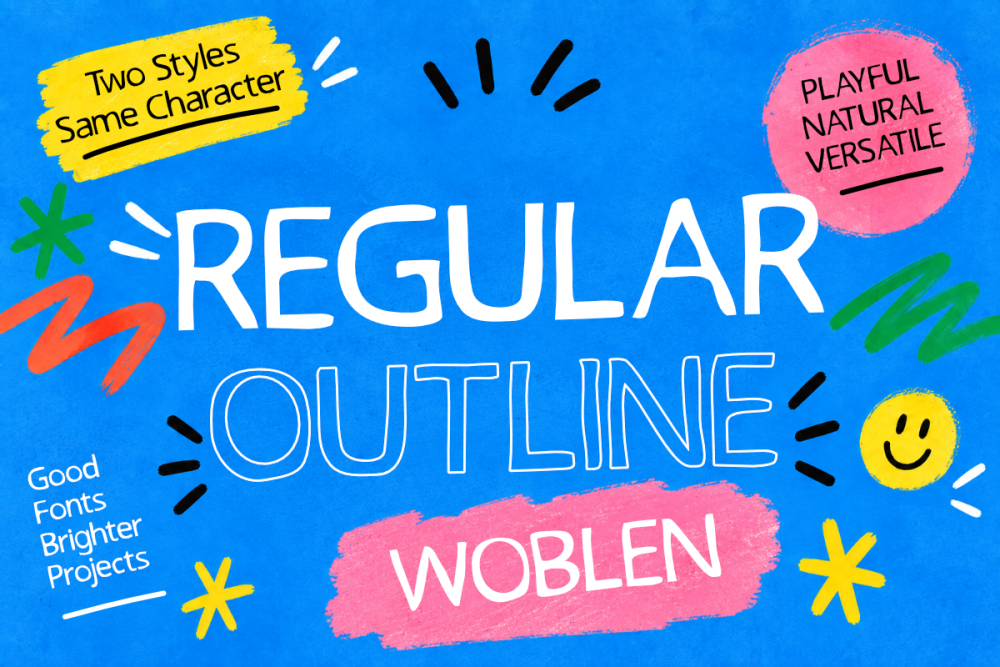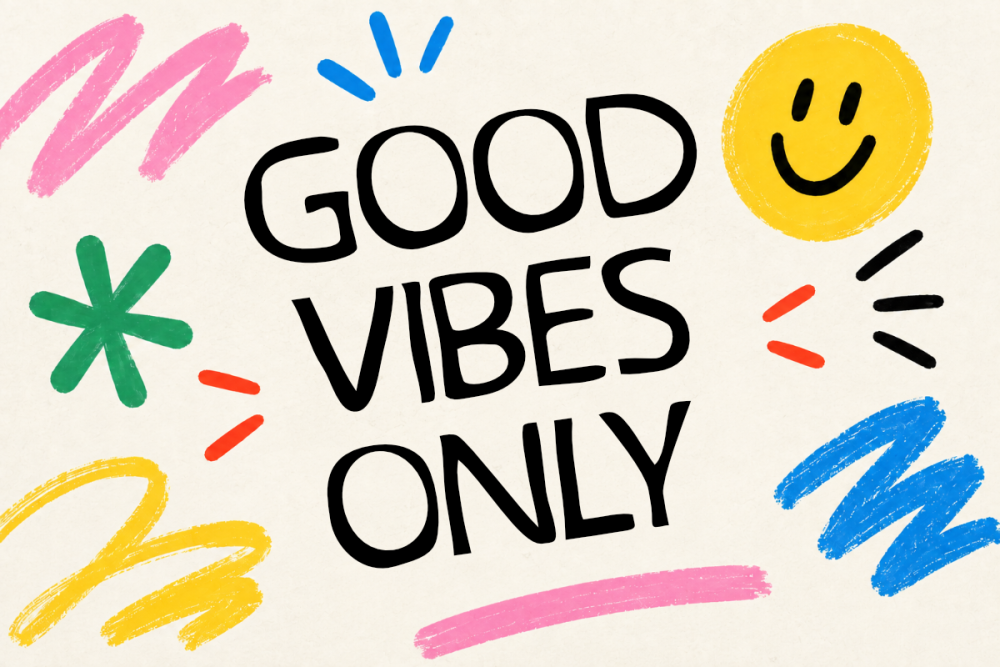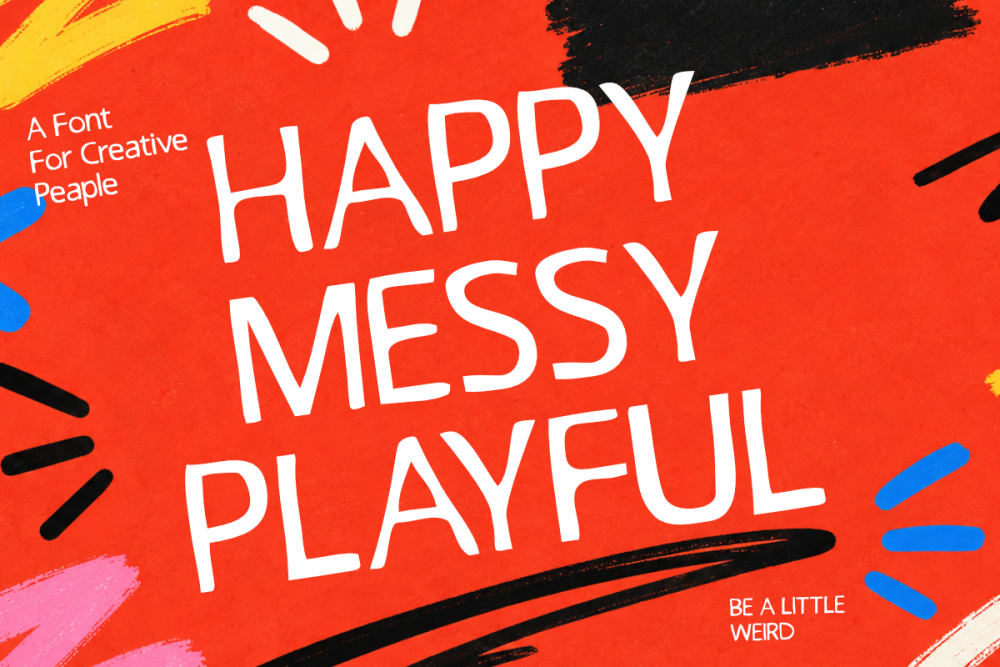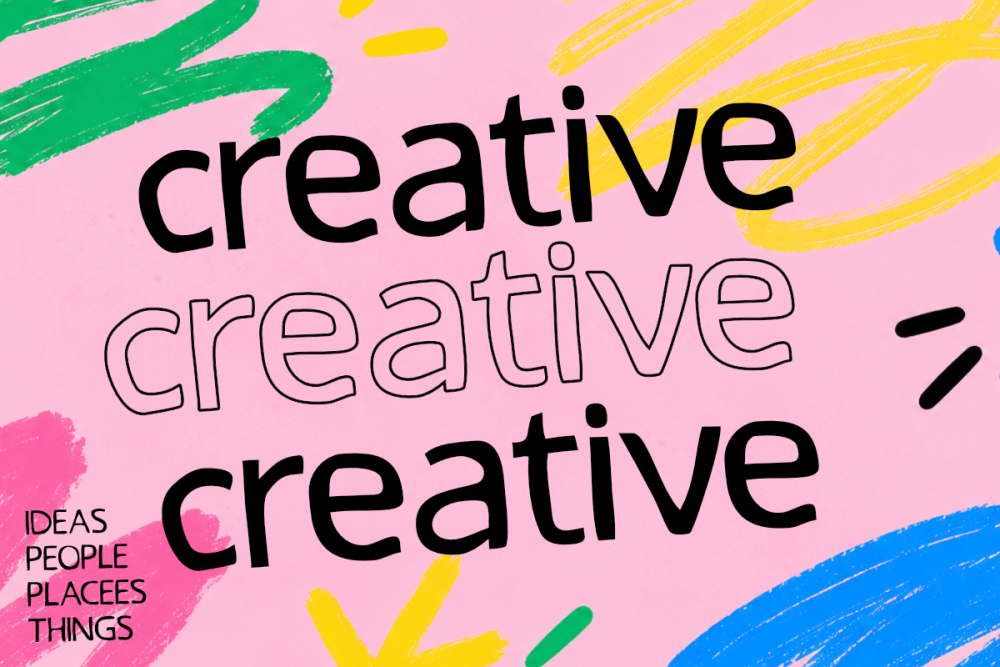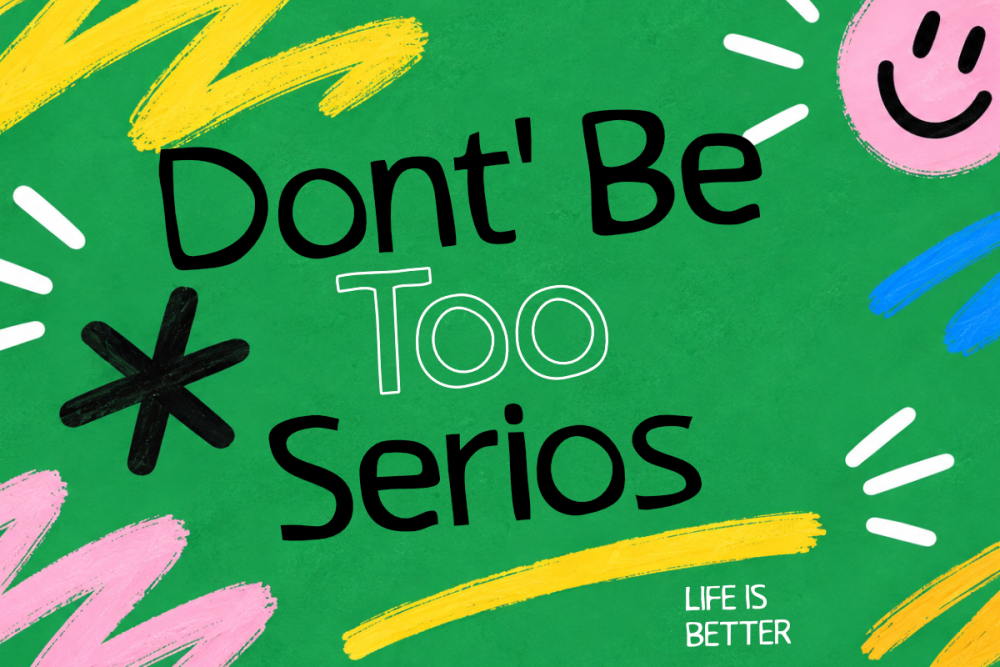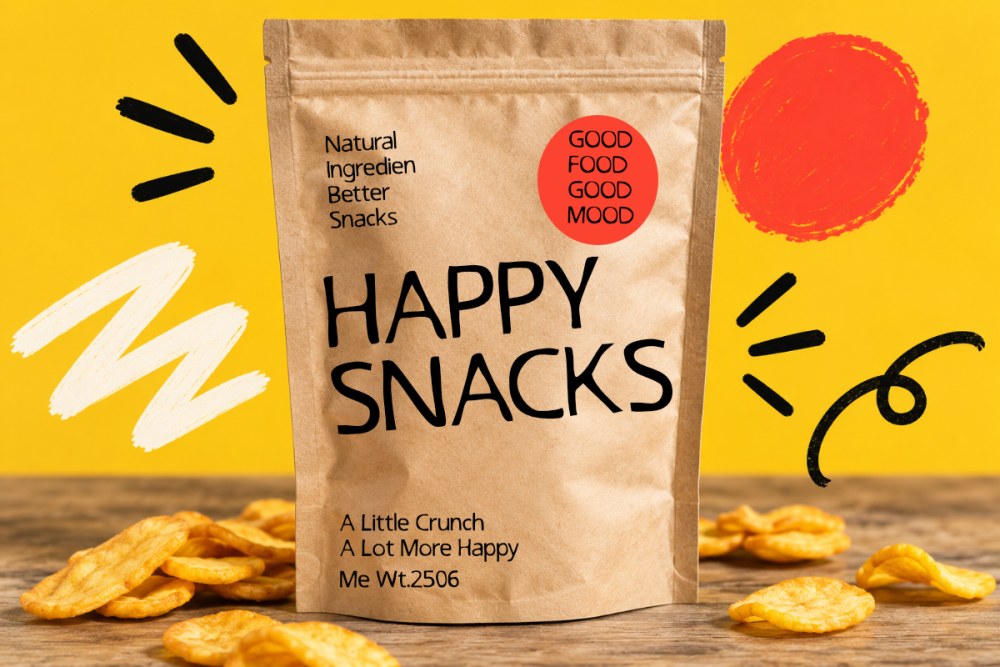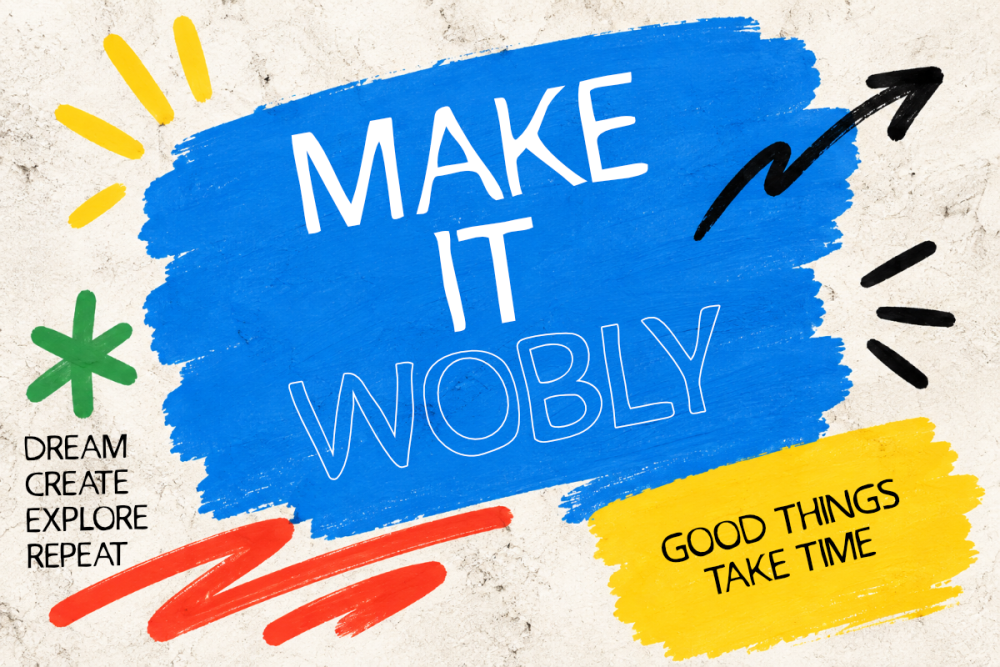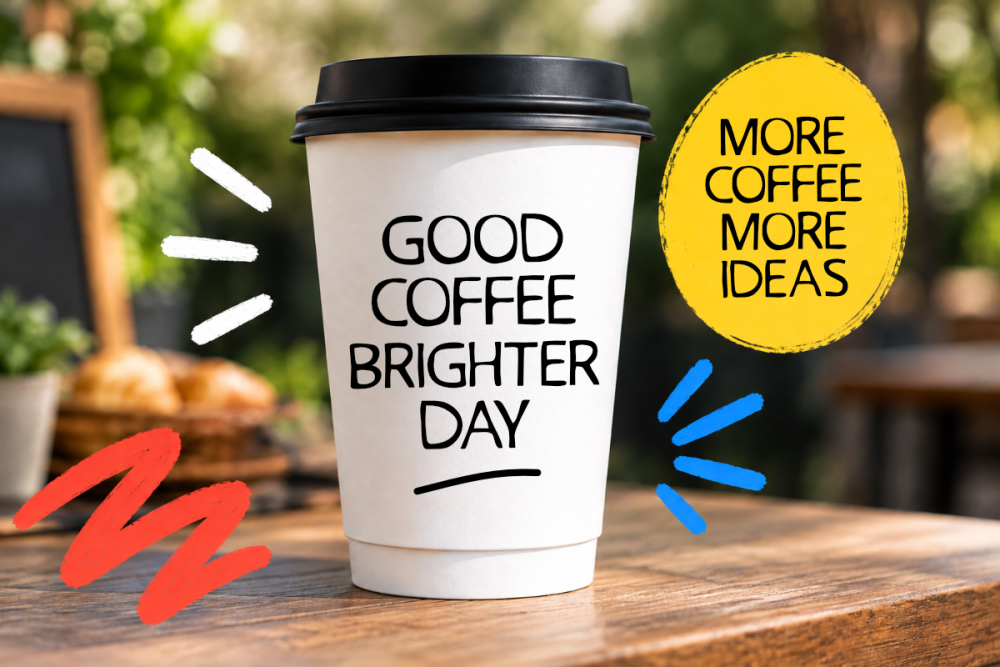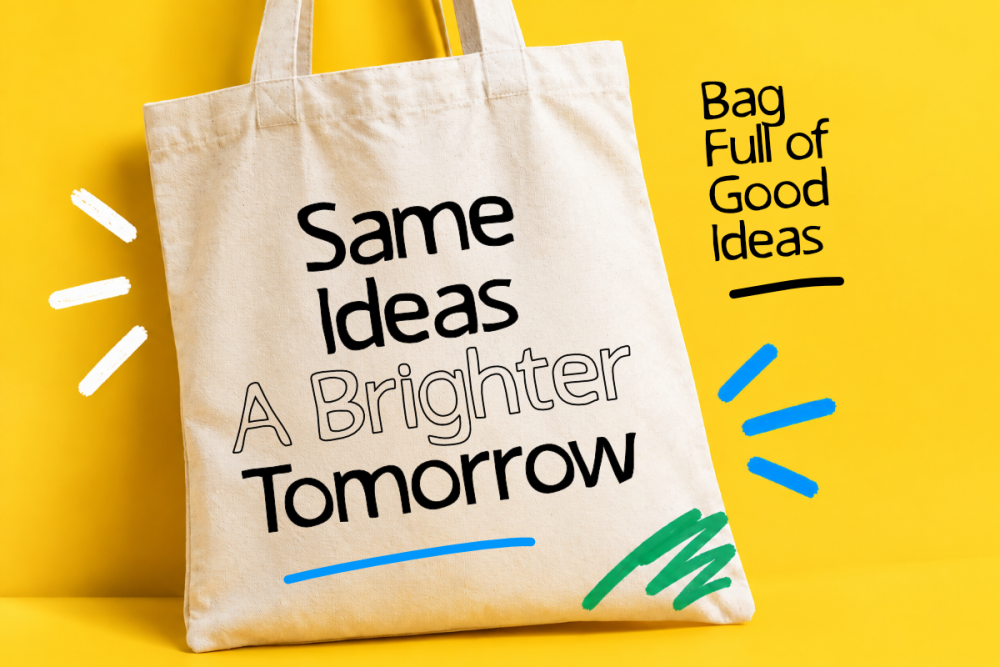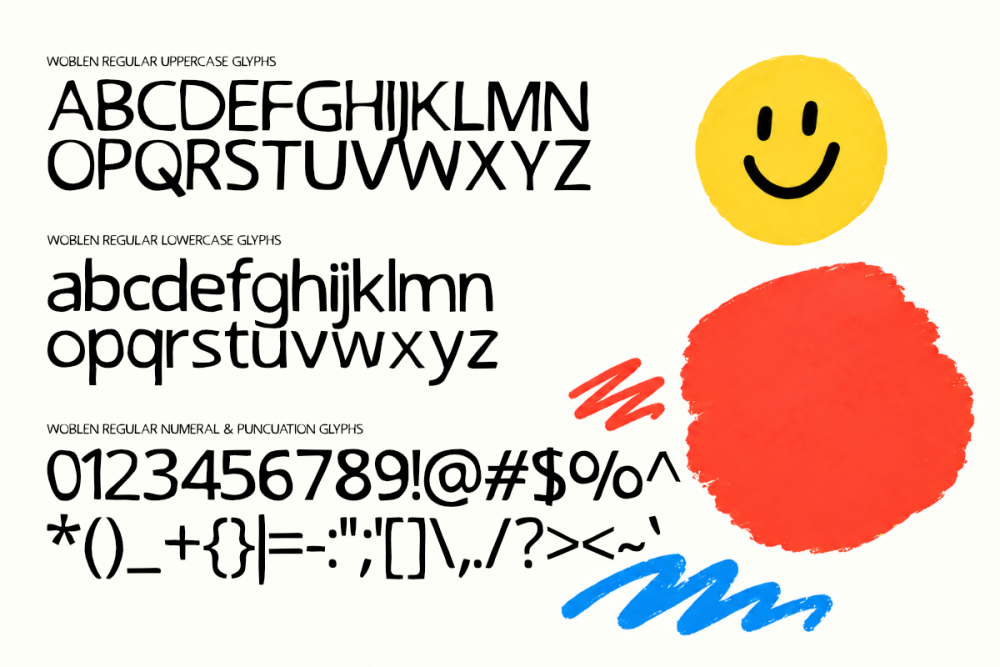
Woblen Regular
Woblen Outline
Woblen is a bold and playful hand-drawn display typeface designed to bring personality, energy, and a fun handmade feel to your creative projects. With its chunky letterforms, organic curves, and slightly irregular shapes, Woblen creates a friendly and expressive visual style that instantly grabs attention.
The font includes Regular and Outline styles, giving you the flexibility to create bold headlines, layered typography, playful compositions, and eye-catching graphic designs. Its casual hand-drawn character works especially well for branding, packaging, posters, apparel, social media graphics, stickers, children’s designs, food and beverage projects, and other creative applications.
Woblen is made for designers who want typography that feels fun, energetic, imperfect, and full of character.
Features
• Regular Style
• Outline Style
• Bold hand-drawn letterforms
• Playful and organic character
• Uppercase & lowercase
• Numerals & punctuation
• Multilingual support
Woblen — Playful Hand-Drawn Display Font